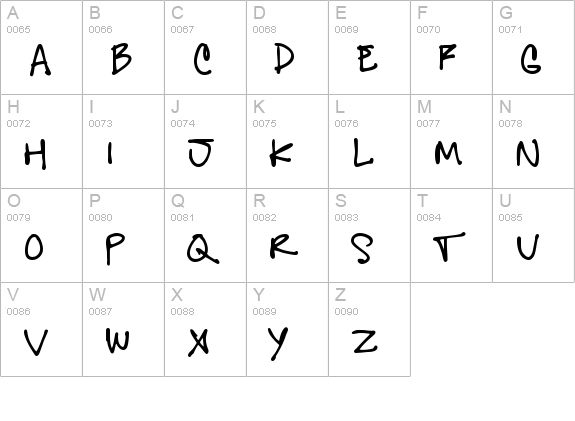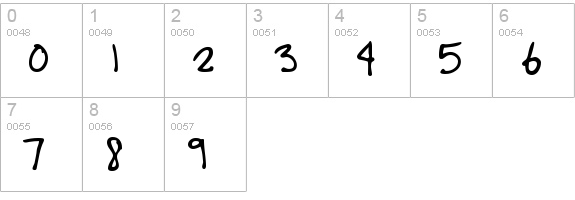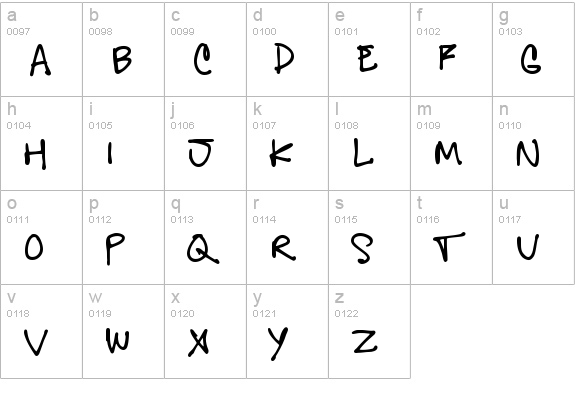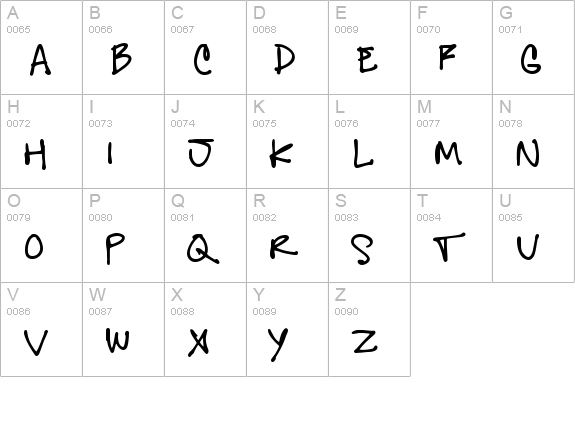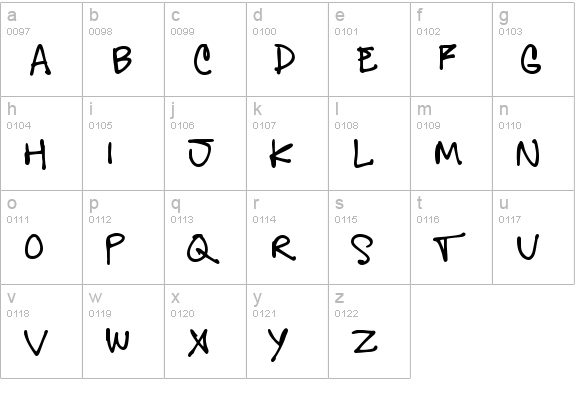
Gregs Other Hand Font Details
Greg's Other Hand font is a whimsical and playful typeface that adds a touch of creativity and uniqueness to any design project. With its quirky and hand-drawn style, this font is perfect for a variety of applications, from posters to greeting cards to social media graphics. The irregular letterforms and charming imperfections give Greg's Other Hand font a distinct personality that sets it apart from more traditional typefaces. Best of all, Greg's Other Hand font is available for free download at FontsMarket.com. Whether you're a designer looking to add a fun twist to your work or someone who just loves experimenting with different fonts, Greg's Other Hand font is sure to inspire and delight. Download it today and let your creativity flow with this delightful and freely available typeface.